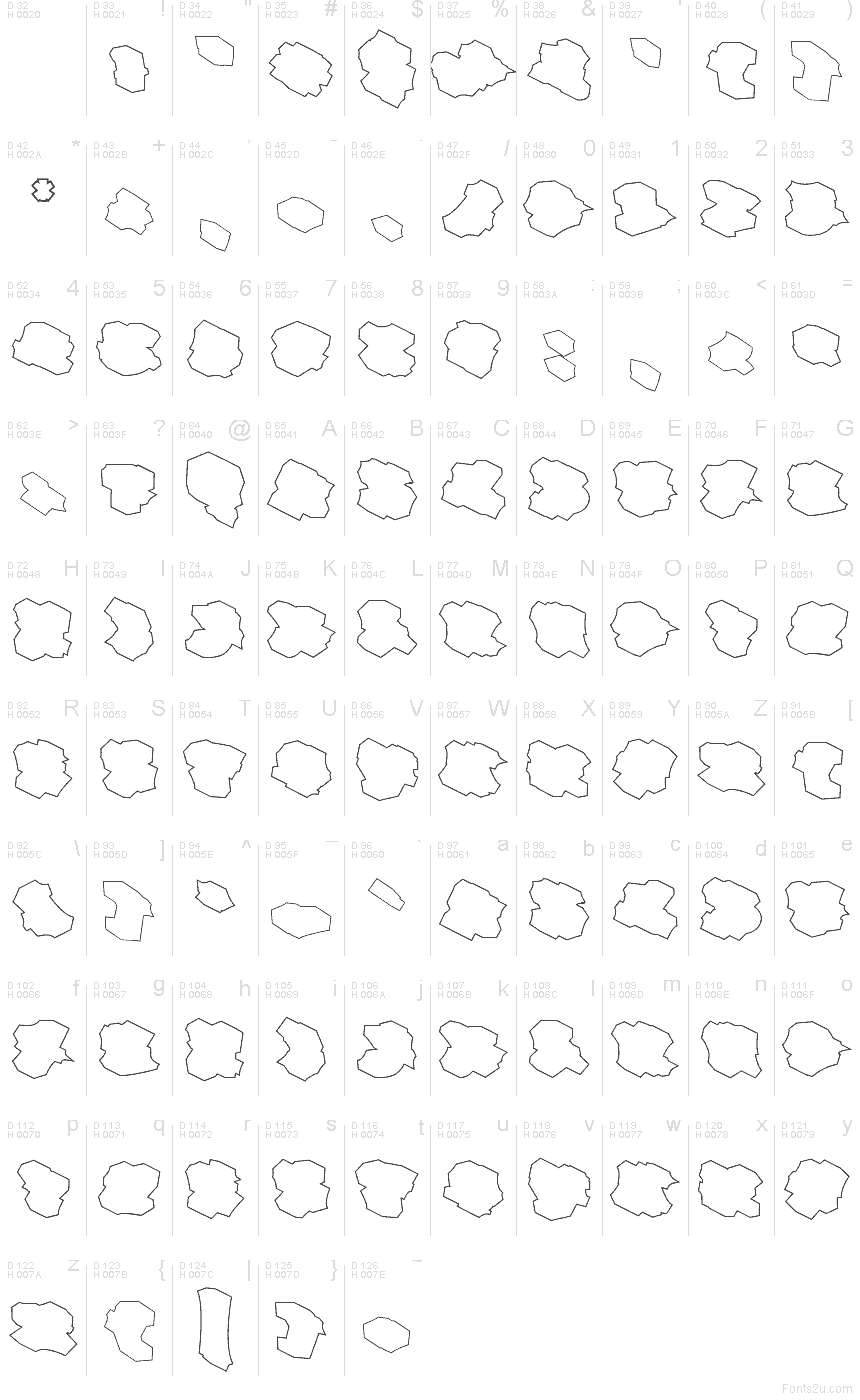
Nightclaw Vandal Outer Outer
Nightclaw Vandal Outer font by Muhammad Panji Ramdhani and Ferbiya Rahmat of Sipanji x Cikareotype is a free graffiti font, with an outline typeface that looks like cracked concrete or ripped tape traced in ink. The letters feel loud even without fill—spiky, uneven, and raw—so your message hits fast while keeping the page airy.